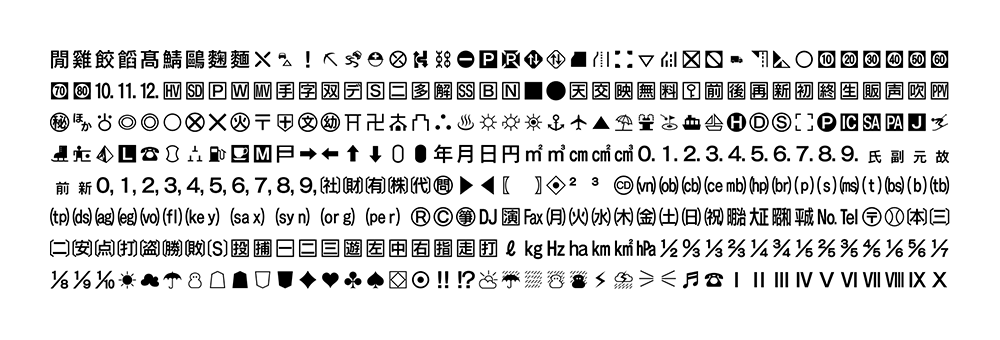
One of the most important elements is the font (typeface). Good design depends on good fonts —something known by every graphic designer.
UC Fonts (Universal Communication Fonts)
These fonts have unified design concepts and support Japanese, Latin, Korean, and Simplified and Traditional Chinese scripts.
The definition of font-integrated display devices continues to increase, reaching almost the quality of commercial printing. We have developed these "truly universal" fonts to handle the surging demand for the expanding UI/UX design world. They are your optimal choice for GUI design.
Design
■ Beautiful structure ensures both good legibility and design quality.
Newly designed Latin, as well as Japanese, Chinese and Korean scripts provided by top-level font foundries in each country match the tastes of local users.
■ Unified design concept across the different languages
You can develop a uniform design applying across the different languages. Each font is available in three weights.
■ Wide variety of supported languages
Japanese, Chinese, Korean and European languages are supported in Unicode.
■ Universal Design Adoption
They have wider counters for better visibility, and yet neutral elegance together.
Different Languages
We currently supply primarily Japanese fonts, but also other fonts including Traditional and Simplified Chinese, Korean and Latin.
We can customize fonts in different sizes for various device displays. We can also develop 4- or 16-shade grayscale fonts (anti-aliasing fonts).
Other OEM Font Services
Non-standard characters for ARIB/VICS/Music Shift-JIS
We have character sets for special purposes.
<For example>
ARIB characters: a set of characters for terrestrial digital TV and one-segment broadcasting regulated by the Association of Radio Industries and Businesses (ARIB). Fonts in various formats including bitmap (16×16 / 20×20 / 32×32 round Gothic style) or TrueType are available.